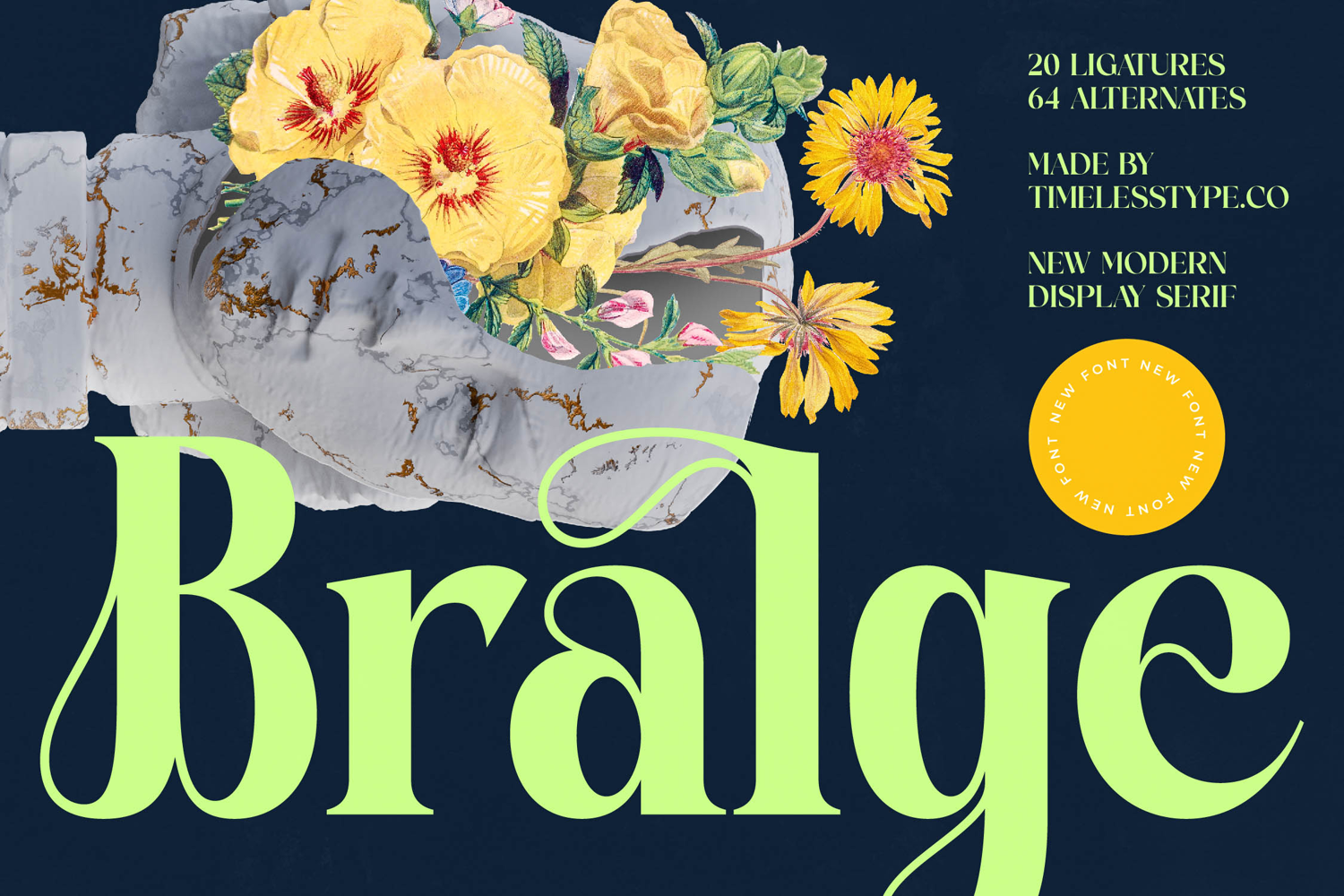
Bralge - Modern Display Serif Font
Discover typographic elegance reimagined with Bralge - Modern Display Serif Font, a truly captivating typeface designed to make a profound statement. This exquisite display serif blends classic sophistication and contemporary flair, characterized by its striking high-contrast letterforms and beautifully sculpted serifs. The inherent grace and bold presence of Bralge - Modern Display Serif Font ensure your designs will command attention and leave a lasting impression.
Elevate your brand's visual identity to unparalleled heights with the exceptional charm of Bralge - Modern Display Serif Font. Its opulent character makes it an indispensable asset for projects demanding grandeur and professionalism. This font is perfect for luxury branding, high-end product packaging, sophisticated editorial design, and impactful advertising campaigns, providing the ideal foundation for visuals that resonate with prestige.
Beyond its stunning aesthetics, Bralge - Modern Display Serif Font offers remarkable functional depth. With its extensive multilingual support, Bralge - Modern Display Serif Font adapts seamlessly across global markets, making it incredibly versatile for international projects. Furthermore, 20 ligatures and 64 alternates provide unparalleled creative freedom, allowing for unique textual variations and truly bespoke compositions.